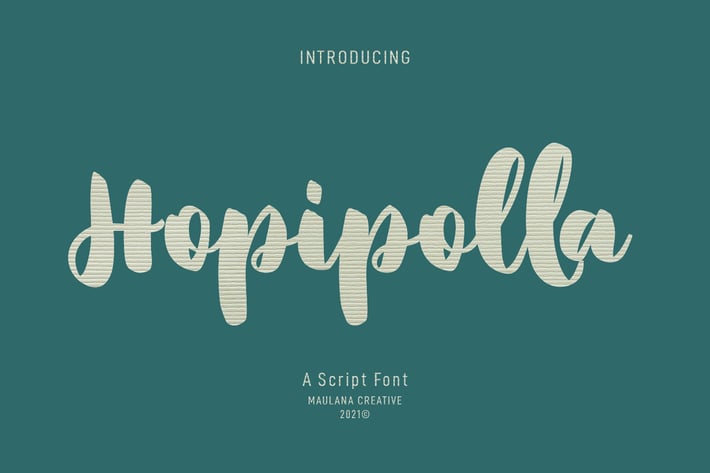
Hopipolla Script Font
Hopipolla is a high contrast handwritten script font. upright and fun character with a bit of ligatures. To give you an extra creative work. Hopipolla font support multilingual more than 100+ language. This font is good for logo design, Social media, Movie Titles, Books Titles, a short text even a long text letter and good for your secondary text font with sans or serif. Make a stunning work with Hopipolla font.